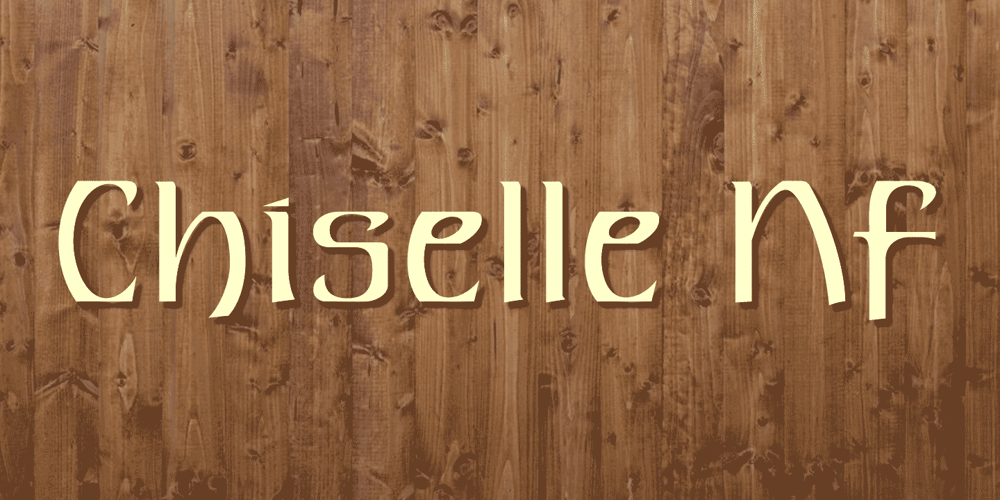
Chiselle NF Font Family was designed by Nick Curtis and published by Nick’s Fonts. Chiselle NF contains 1 styles and family package options. This font is a straight-up revival of Rustikalis, a typeface designed for the VGC Phototypositor in the 1960s. This face combines medieval flair with contemporary design sensibilities into one attractive package. Both flavors of this font feature the 1252 Latin, 1250 Central European, 1254 Turkish and 1257 Baltic character sets.